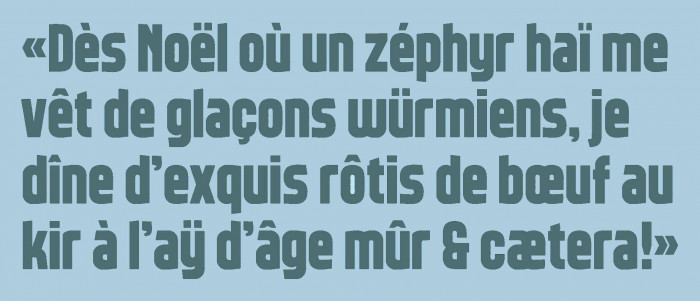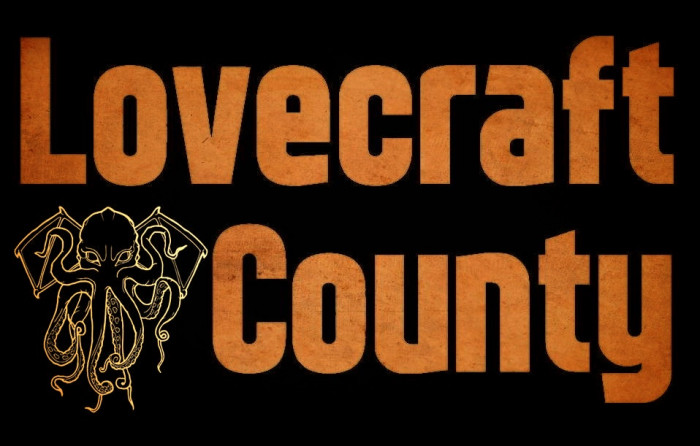
Undertow from the TwentiesComp.
This is an incredibly beautiful font! I never thought it was possible to do something like this in Fontstruct. And I think about it always when I look at your new fonts.
@Dmitriy Sychiov: You make me blush with your kind comment. Glad you like it. This font was left out of the TwentiesComp for a few years, but I like it.